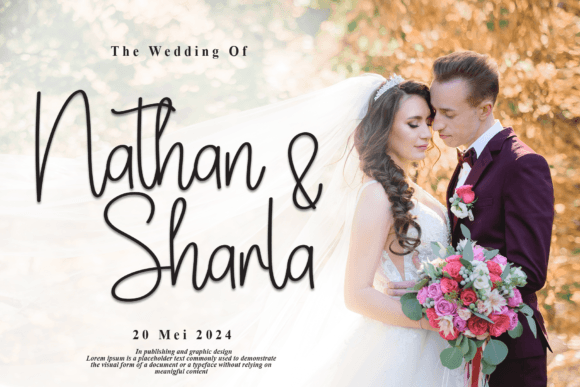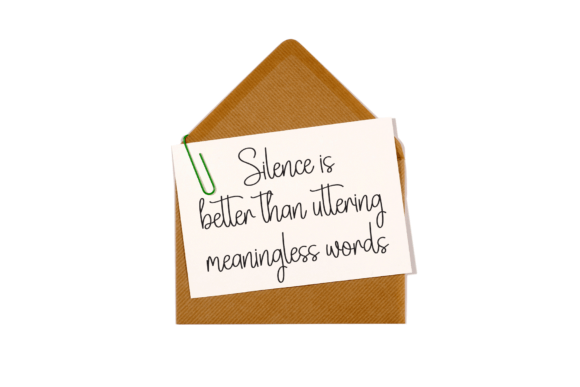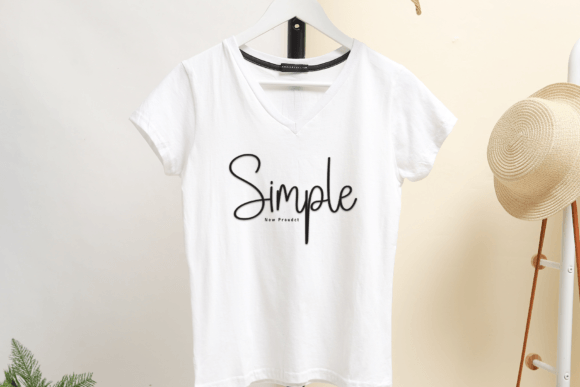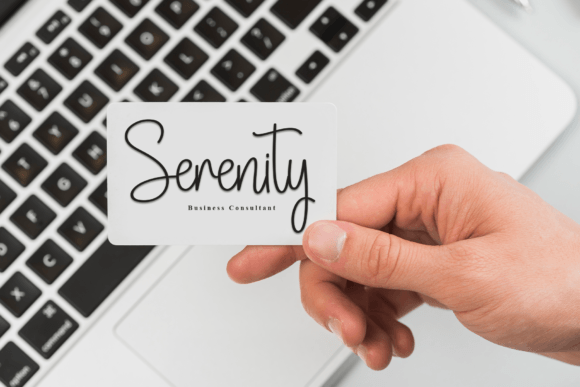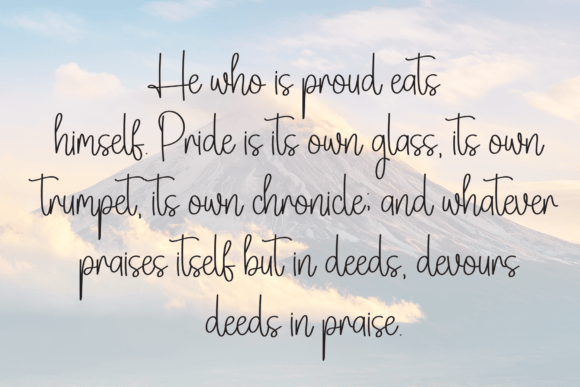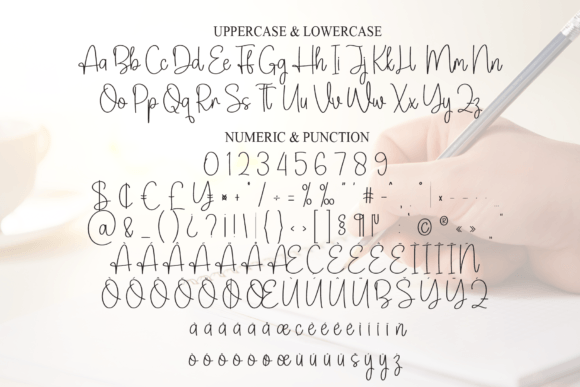
The Ultimate Font for Captivating Designs: Amsterdam Signature Font
Imagine you’re strolling through Amsterdam’s charming canals, surrounded by historic architecture and vibrant culture. You stumble upon a quaint café, and as you glance at their menu, you’re captivated by the elegant typography. The curves and lines seem to dance on the page, leaving you wanting more. This is the magic of great design, and it all starts with the right font.
The Amsterdam Signature Font is designed to evoke the same feeling of sophistication and style that Amsterdam embodies. This versatile typeface is perfect for adding a touch of class to your next project, whether it’s a logo, headline, or invitation. With its modern feel and elegant curves, it’s a valuable addition to any designer’s toolkit.
Amsterdam Signature Font Key Features
- Unique Characteristics: This font features a unique, hand-drawn design with a mix of modern and vintage elements, creating a distinctive and elegant look.
- Script and Ligatures: The Amsterdam Signature Font includes a wide range of script and ligature variations, allowing for a high degree of expressiveness and creativity.
- Stylistic Sets: The Amsterdam Signature Font includes multiple stylistic sets, enabling designers to easily switch between different styles and moods, from formal to informal.
Amsterdam Signature Font Review
Overall, I’m impressed with the Amsterdam Signature Font. It’s a beautiful, elegant font that’s perfect for luxury brands and high-end designs.
- Unique, handwritten feel: The Amsterdam Signature Font has a distinct, handwritten look that sets it apart from other fonts.
- High-end feel: The font’s elegant, sophisticated feel makes it perfect for luxury brands and high-end designs.
- Versatility: The font comes in various weights and styles, making it easy to use in a variety of design projects.
- Limited legibility: At smaller font sizes, the Amsterdam Signature Font can be difficult to read, especially for those with vision impairments.
- Limited character set: The font’s character set is limited, which may not be ideal for projects that require a wide range of special characters.
Overall, the Amsterdam Signature Font is a beautiful and elegant font that’s perfect for high-end designs. While it has some limitations, its unique look and feel make it a great addition to any designer’s toolkit.
The Amsterdam Signature Font is perfect for creating elegant and sophisticated designs. Some common use cases include:
For the most out of the Amsterdam Signature Font, use it in combination with other elegant and sophisticated design elements, such as cursive scripts and floral patterns.